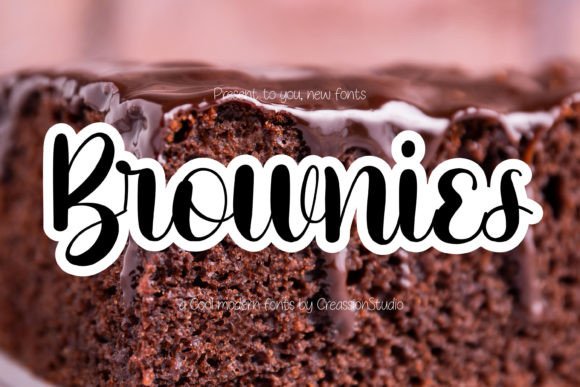
The Brownies Font: A Friendly and Cute Handwritten Delight
A Personal Review: What I Love About Brownies Font
The Brownies font is a cute and casual handwritten font that exudes an incredibly friendly feel. Here are some things that I absolutely love about it:
- ✨ Friendly and approachable vibe that’s perfect for creative projects
- 💖 Adorable handwritten feel that’s perfect for DIY projects, Instagram posts, or calligraphy scripts
- 🎨 Highly versatile and can be used for a wide range of design projects
While the Brownies font is an amazing addition to any design project, there are a few small quirks to be aware of:
- 🤔 Limited availability of stylistic alternates, which may limit its use in certain design projects
- ⚠️ May not be suitable for formal or professional designs, as it has a distinctly casual feel
The Story Behind Brownies Font
The Brownies font was designed with the intention of creating a friendly and approachable handwritten font that’s perfect for creative projects. The designer, who wishes to remain anonymous, was inspired by the warm and fuzzy feelings of childhood and wanted to create a font that would evoke those same feelings in others.
| Font Name | Brownies Font |
| Author | Creassion Studio |
| Q: What is the Brownies font best used for? | A: The Brownies font is best used for creative projects, such as DIY crafts, Instagram posts, and calligraphy scripts. |
| Q: Is the Brownies font suitable for formal designs? | A: No, the Brownies font has a distinctly casual feel and may not be suitable for formal or professional designs. |